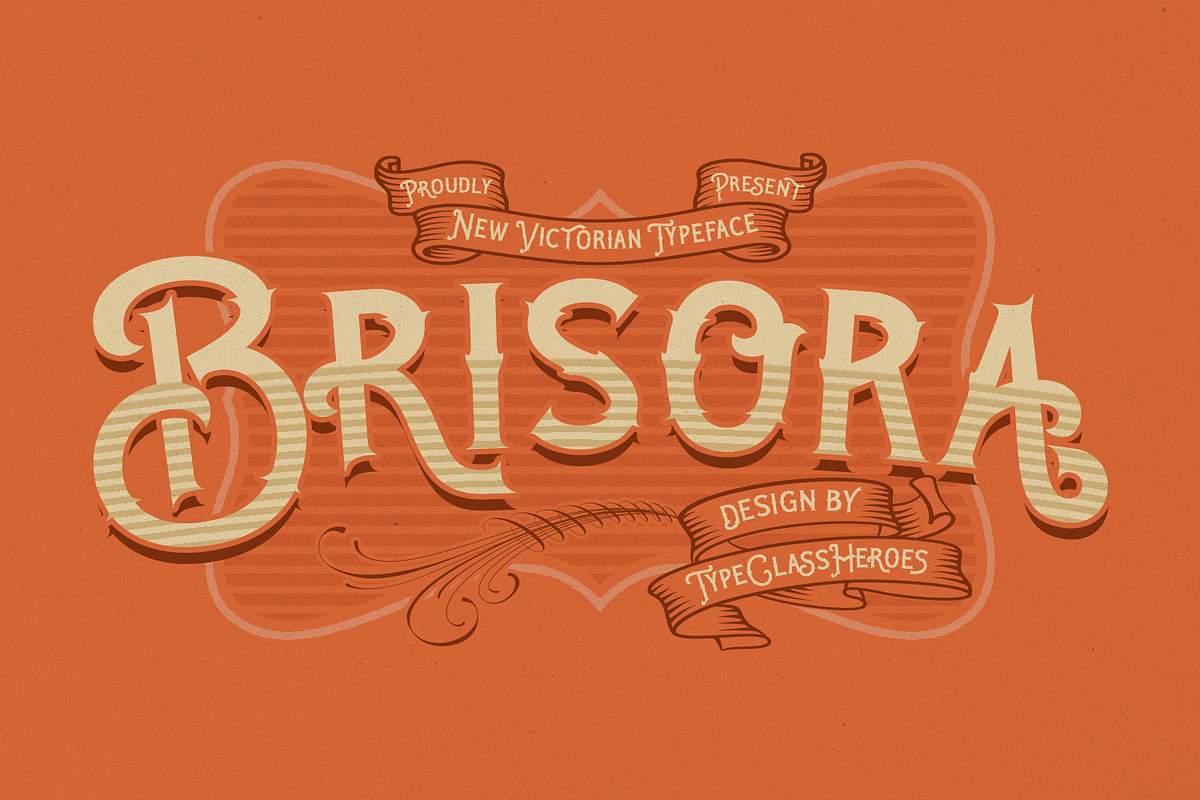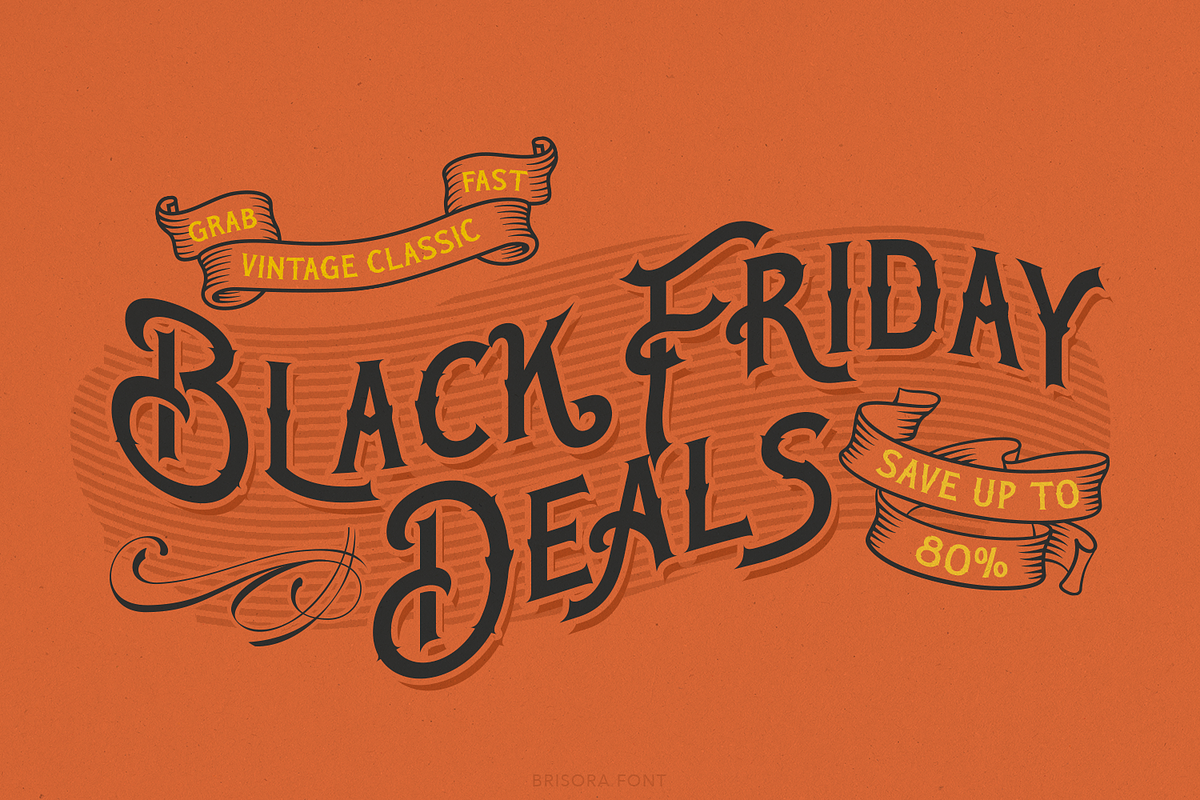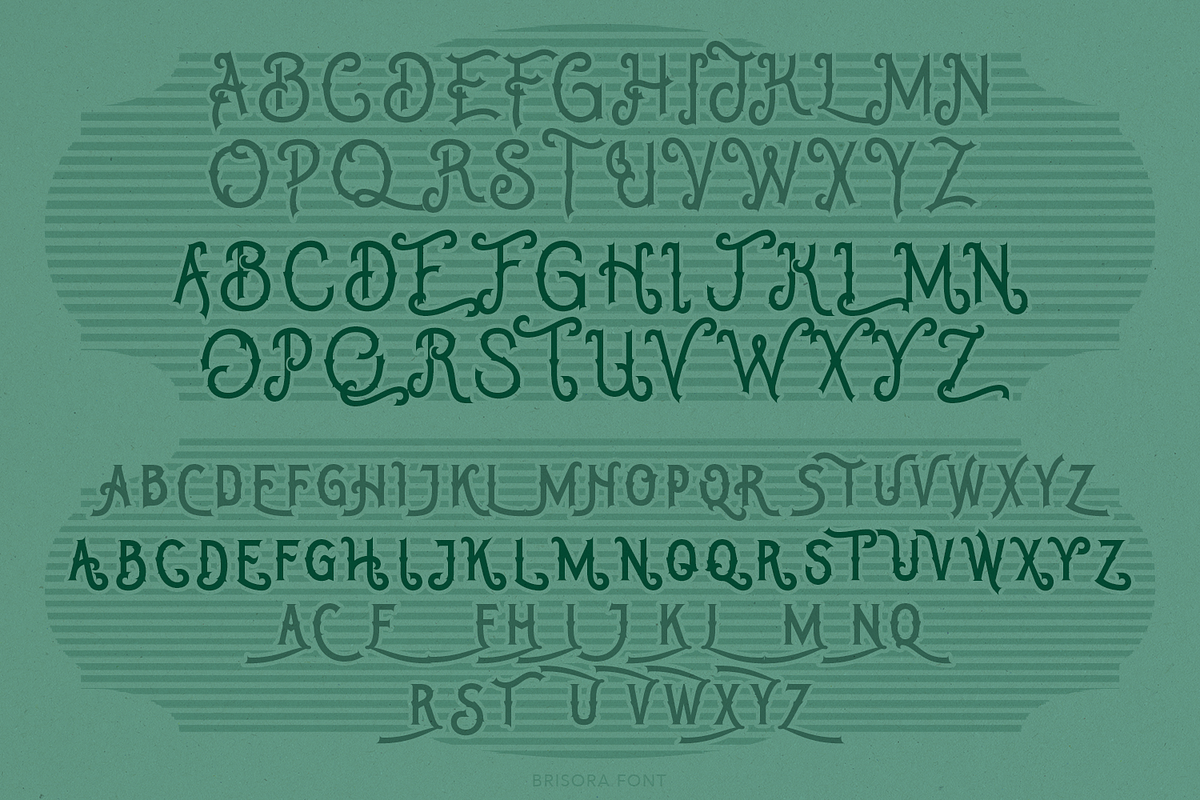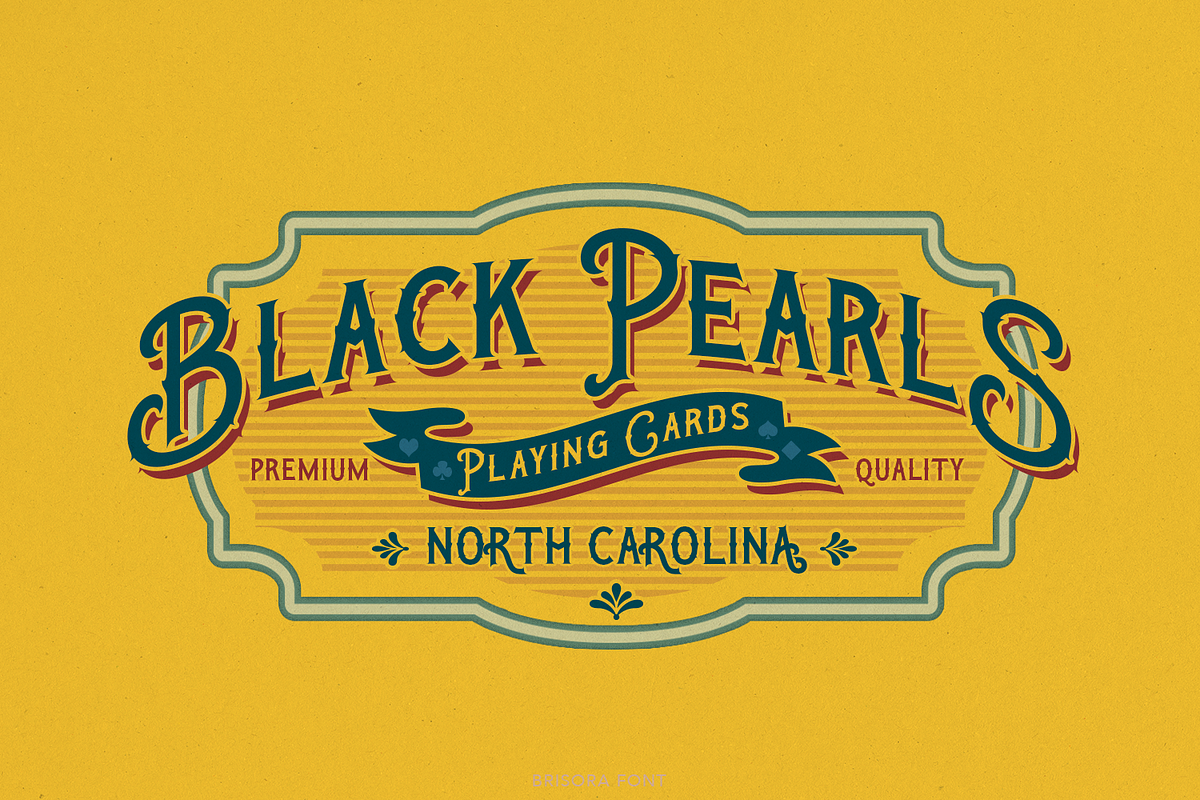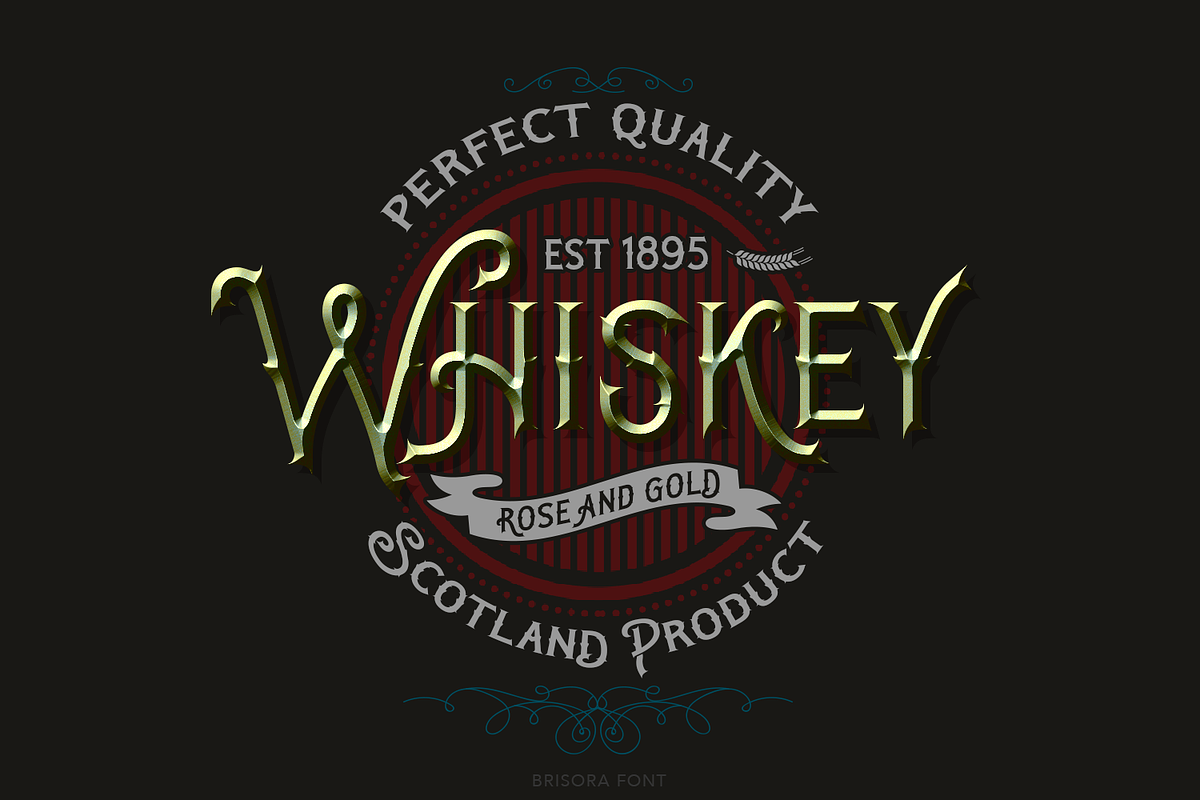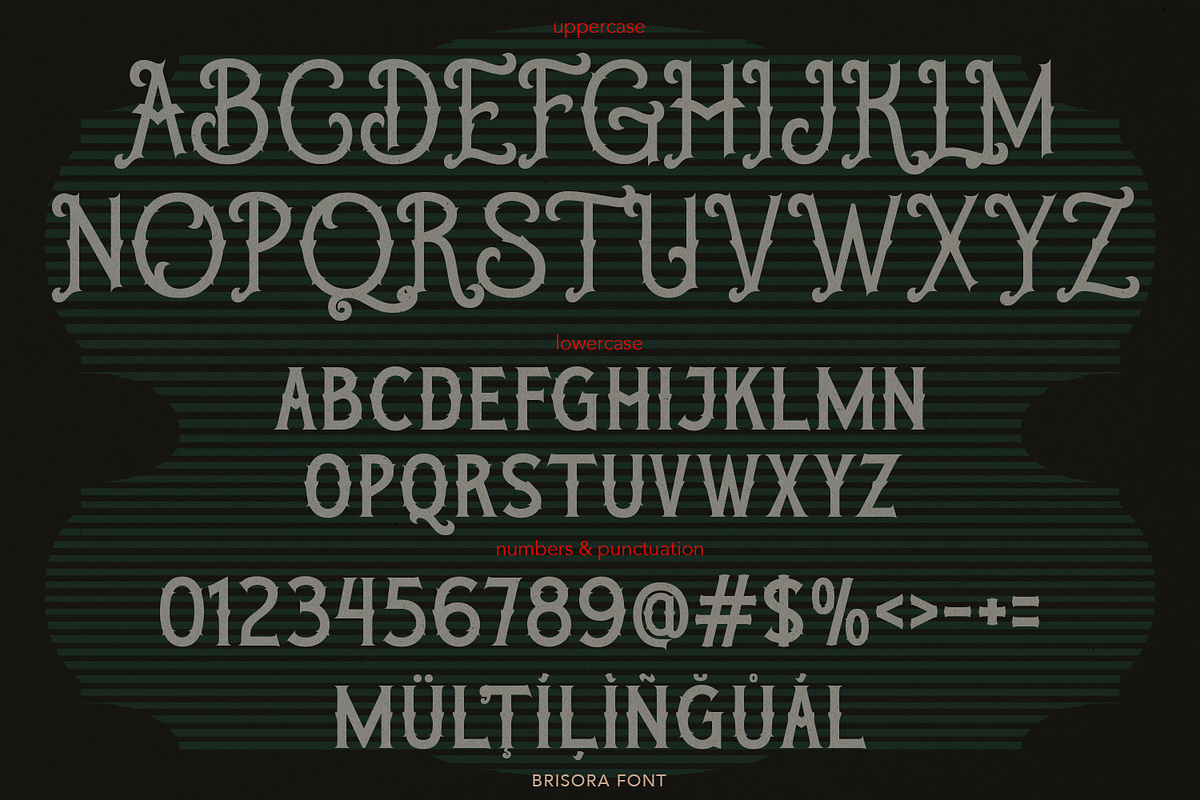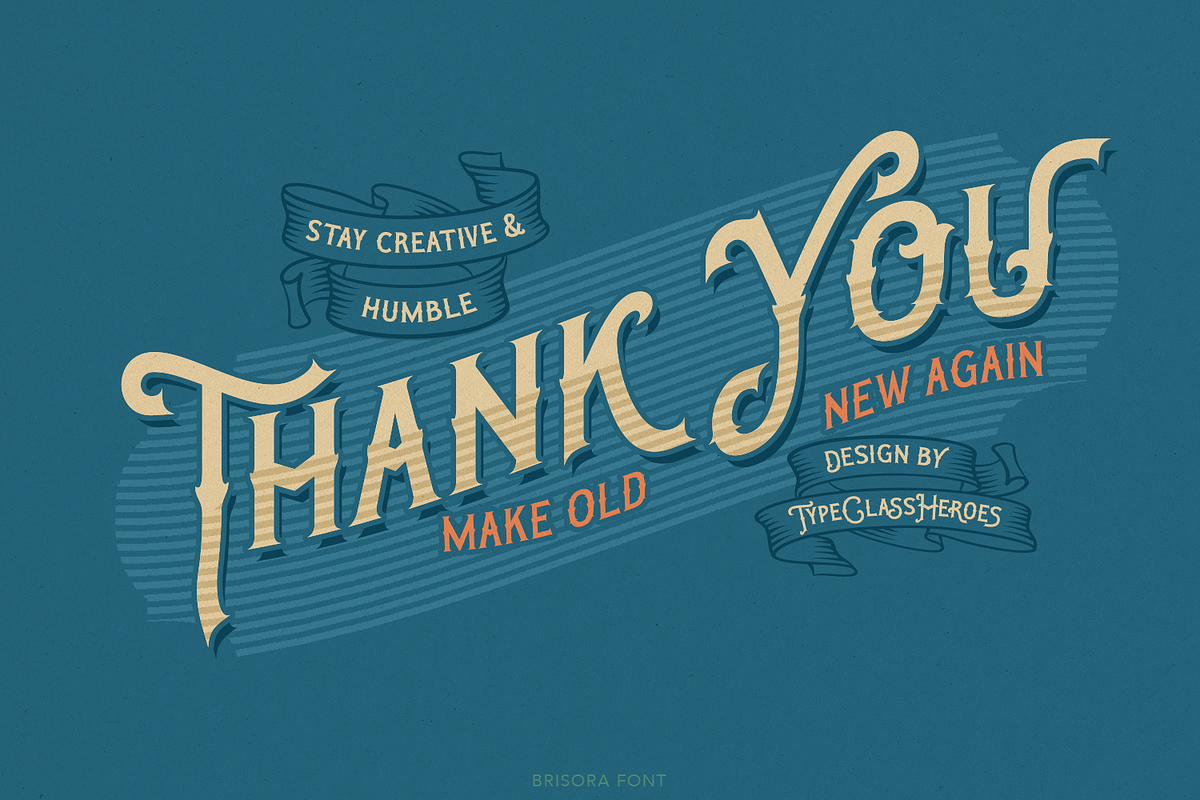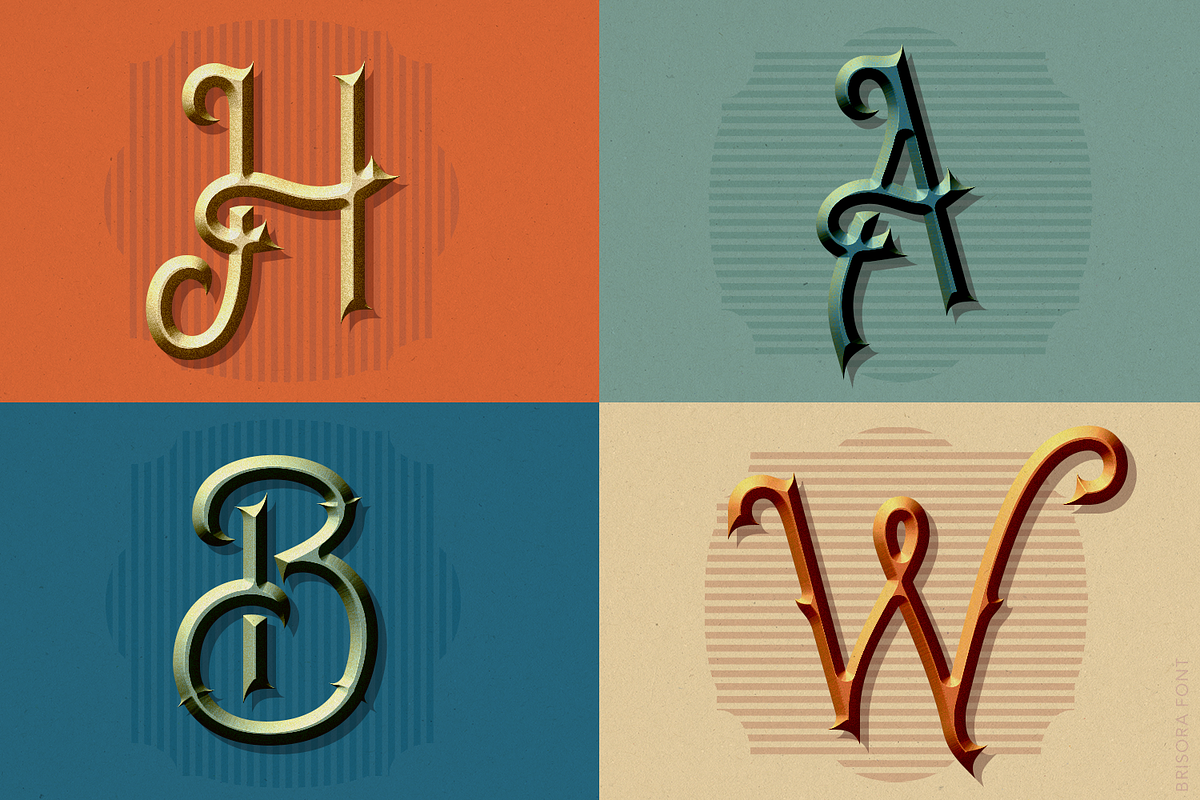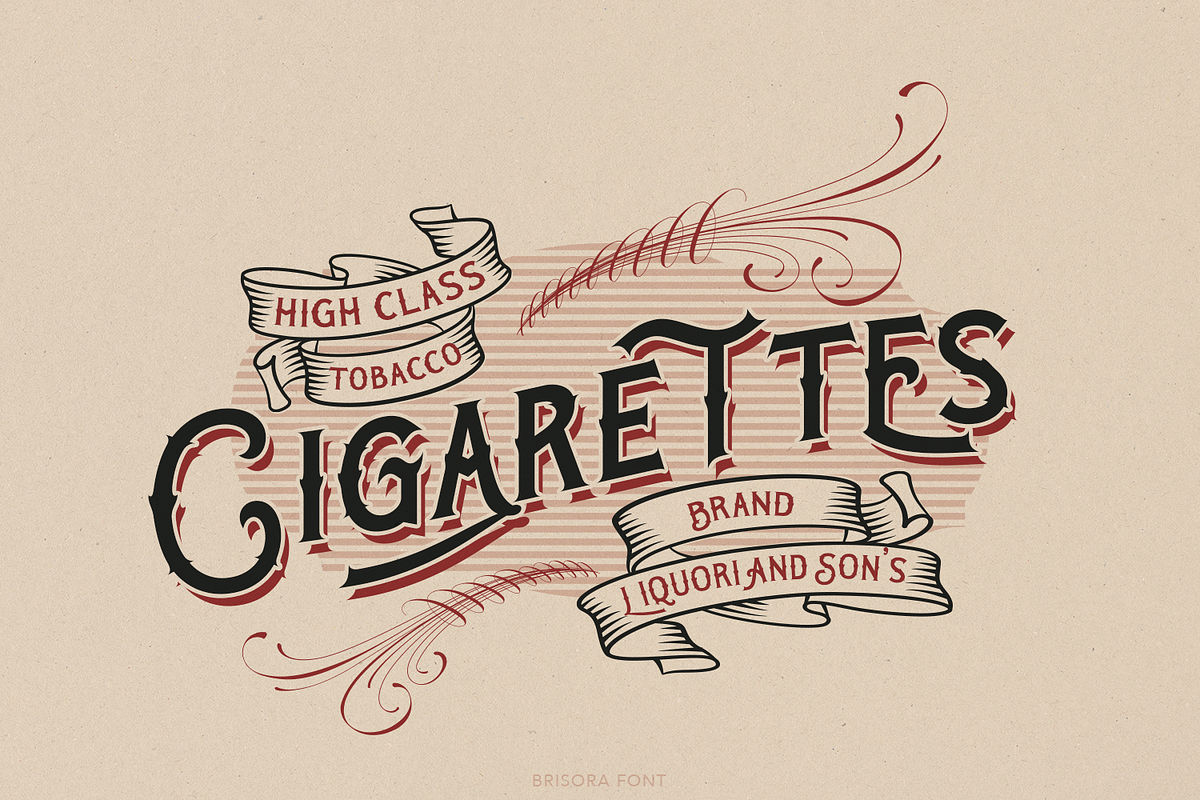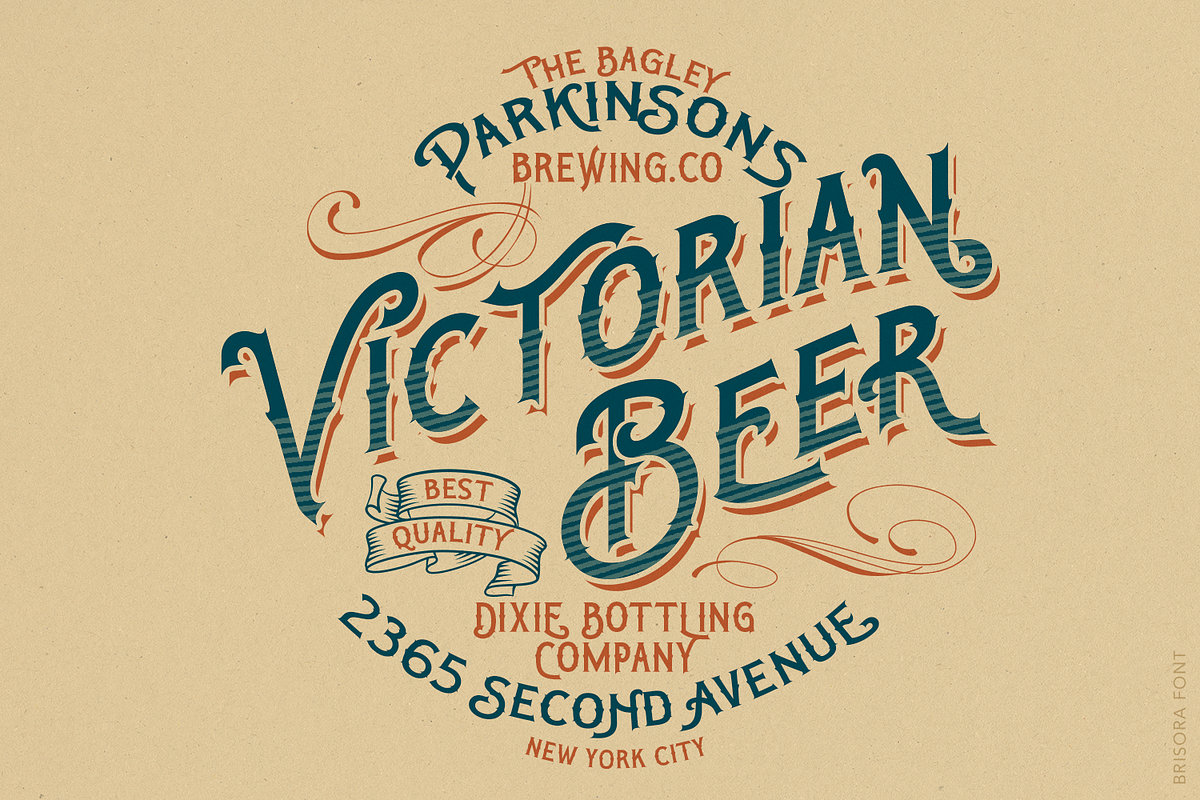
Brisora Victorian typeface
We proudly present "Brisora" is an all-caps font with an elegant touch with a classic feel inspired by the typography from the 19th century, old fancy lettering, vintage illustration, and victorian calligraphy.
This font is very perfect for many display purposes in your product design if you want to a vintage and classic style, elegant and luxury. Such as book covers, product labels, logos badges, drink bottles, tattoo shop, coffee shops, fashion products, wedding invitation, etc.